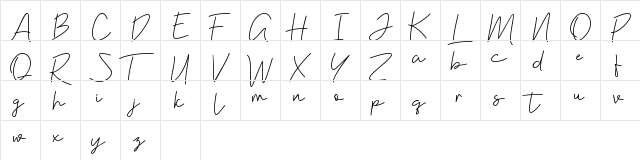
Violia Regular
Design Context for Violia Typeface
Violia is a composed and adaptable typeface that performs quietly and consistently across a wide range of design contexts.